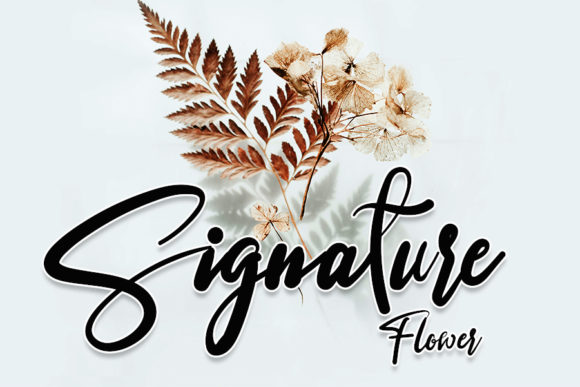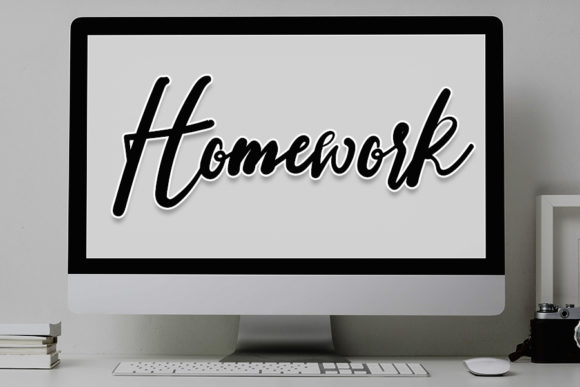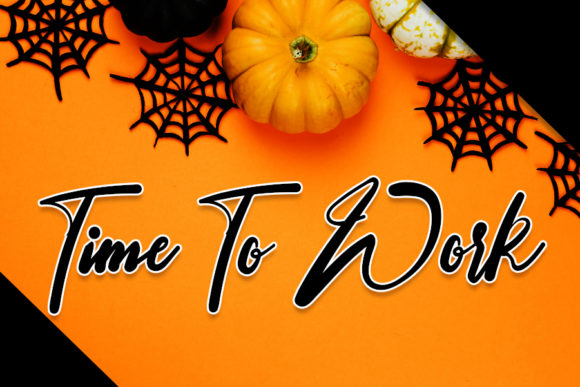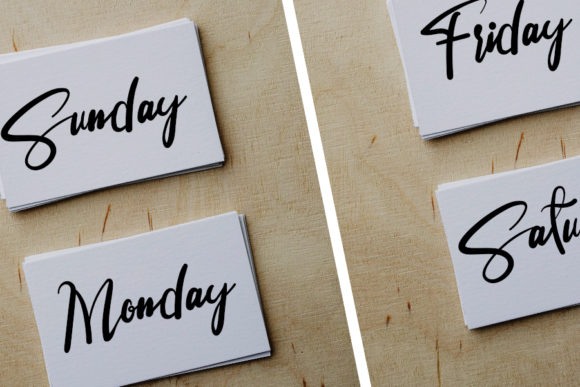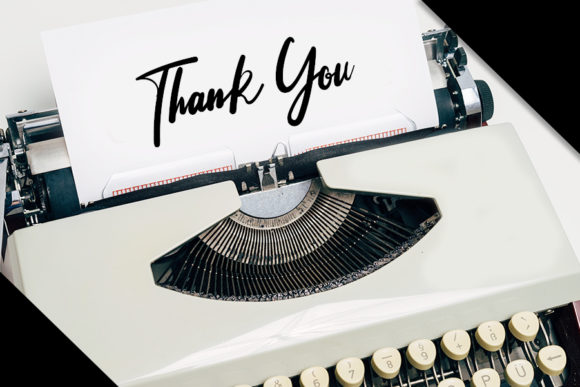
Introduction to Sannastasa Font
Have you ever been in a creative rut, staring at a blank canvas, searching for the perfect font to bring your vision to life? I’m sure many designers can relate to this feeling. For me, it was the moment I discovered the Sannastasa Font. Its elegant and flowing design instantly caught my attention, and I knew I had to learn more about it.
As a valuable design resource, the Sannastasa Font is perfect for any creative project that requires a touch of sophistication and whimsy. With its varying baseline, smooth lines, gorgeous glyphs, and stunning alternates, this font is sure to elevate your designs to the next level. Whether you’re working on a wedding invitation, a thank you card, or a logo, the Sannastasa Font is a great choice.
Key Features of Sannastasa Font
- Features a unique, modern design with a transparent background, allowing for versatility in application.
Honest Review: Sannastasa Font
I recently came across the Sannastasa Font and I must say, it’s a great addition to any design resource. This font is perfect for creative projects that require a unique and elegant touch.
What works well: ✨ The font has a beautiful, modern design that’s easy to read. It’s available for free download, which is a huge plus for designers on a budget. The font also comes with a transparent background, making it easy to use in various design scenarios.
Here are some of the key features of the Sannastasa Font:
- Modern and elegant design
⚠️ One limitation of the font is that it may not be suitable for projects that require a bold, playful font. However, for most design projects, the Sannastasa Font is a great choice.
Overall, I’m really impressed with the Sannastasa Font. It’s a high-quality design resource that’s perfect for creative projects. I highly recommend it to designers looking for a free font with a unique and elegant design.
Tips for Getting the Most Out of Sannastasa Font
For optimal results, use the Sannastasa Font on a transparent background to create a seamless design. Experiment with different font sizes and styles to add visual interest to your creative project.
Common Use Cases for Sannastasa Font
The Sannastasa Font is ideal for various design projects, including logos, branding materials, and digital marketing campaigns. Its high-quality design makes it a popular choice among designers and creatives.